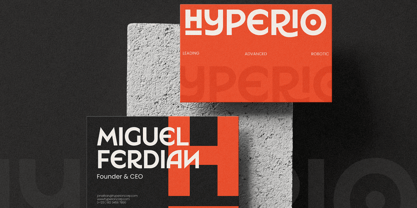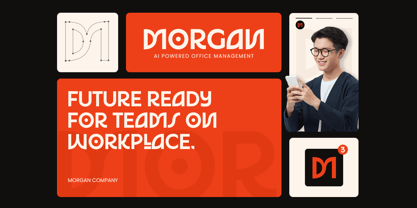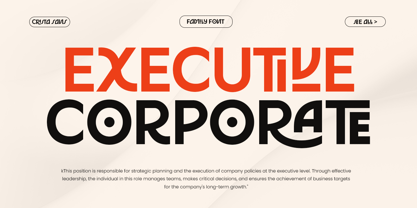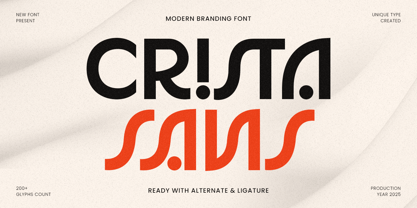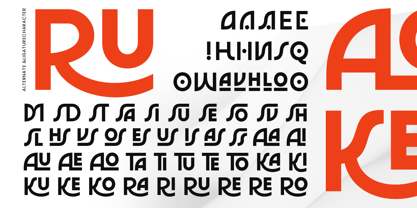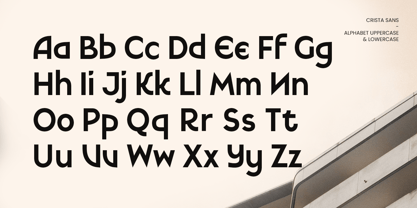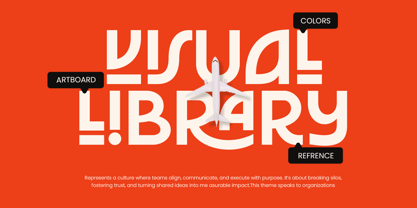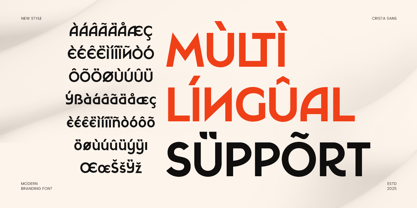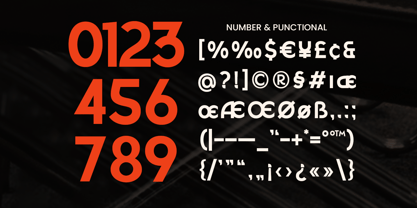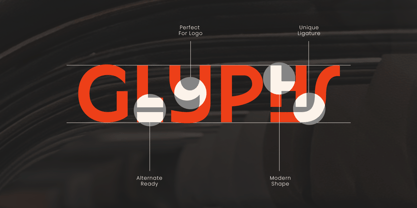
Crista Sans
CRISTA SANS is a modern branding font designed with clean geometry and refined proportions, perfect for brands that value simplicity, clarity, and timeless professionalism. Its balanced letterforms make it ideal for corporate identity systems, packaging, and modern editorial layouts.
Crafted for maximum versatility, CRISTA SANS works beautifully in both print and digital environments. Its minimal aesthetic and smooth rhythm make it suitable for fashion brands, tech startups, creative agencies, and modern businesses that want to project confidence and sophistication.
Whether used for headlines, logos, or body text, CRISTA SANS provides readability and consistency, making it a perfect foundation for elegant, cohesive branding.
CRISTA SANS – Modern Branding Font Features
• Clean and modern sans serif design for professional branding
• Perfect for corporate identity, packaging, and editorial layouts
• Geometric structure with balanced proportions for clarity
• Ideal for minimal, modern, and creative projects
• Uppercase, lowercase, numerals, and punctuation included
• OpenType features for enhanced design control
Build a timeless visual identity with CRISTA SANS – the ultimate modern branding font for corporate, creative, and minimalist design.